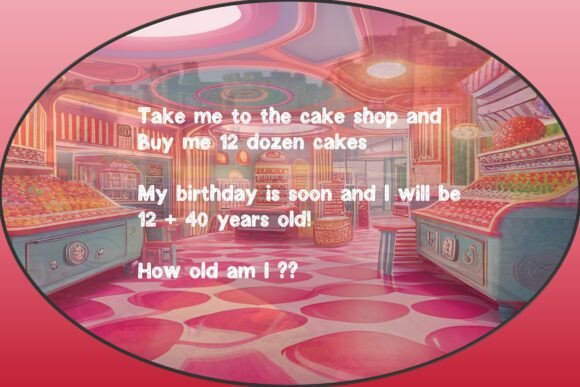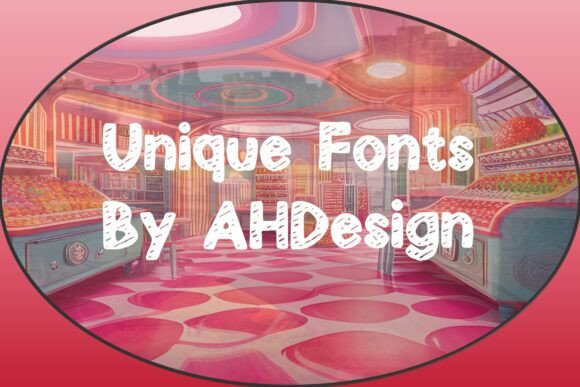
The Sweet Art of Typography: Introducing Cake Icing Font
Have you ever been in the midst of designing a dessert-themed graphic, only to be stumped by the perfect font to match your sweet treats? You’re not alone. The quest for the perfect font can be a daunting task, especially when it comes to capturing the whimsy and charm of your baked goods. This is where the Cake Icing Font comes in – a delightful typography designed to complement your cake and candy graphics with a touch of warmth and personality.
As a designer, you’ll appreciate the value of the Cake Icing Font in bringing your culinary creativity to the forefront. Its playful nuances balance whimsy and readability, making each word as tempting as the desserts you’re showcasing. With the Cake Icing Font, you’ll be able to infuse charm into your recipes, menus, and cookbooks, and add a layer of warmth to your culinary communication.
- Unique Characteristics: The Cake Icing Font features a whimsical, hand-drawn design that resembles the texture of cake icing. It is perfect for adding a touch of playfulness and nostalgia to designs, especially those related to baking and desserts.
- Font Style: Cake Icing Font is available in a single style, but it can be used to create a range of effects by adjusting font sizes, colors, and arrangements.
Cake Icing Font Review
Cake Icing Font is a playful and whimsical font that’s perfect for baking-related projects or anything that needs a touch of sweetness. Here are the things that work well: ✨
- Easy to read and use: The font is straightforward and simple to incorporate into any design.
- Perfect for baking and food-related projects: The font’s design and style are tailored specifically for baking and food-related projects, making it a great choice for recipes, menus, and more.
- Customizable: Cake Icing Font can be easily customized to fit your design needs, including changing the color, size, and style of the text.
- Limited expressiveness: The font’s design and style can be a bit too playful and whimsical for more formal or professional projects.
- No support for complex layouts: The font may not be the best choice for complex layouts or projects that require a lot of text manipulation.
Overall, I think Cake Icing Font is a great choice for baking and food-related projects, or anything that needs a touch of sweetness. However, it may not be the best choice for more formal or professional projects. With a little creativity and customization, this font can add a lot of personality to your designs.
The Cake Icing Font is perfect for creating whimsical and playful designs, such as:
Wedding invitations and decorations
Party banners and signs
Food and dessert labels
Children’s party decorations and invitations